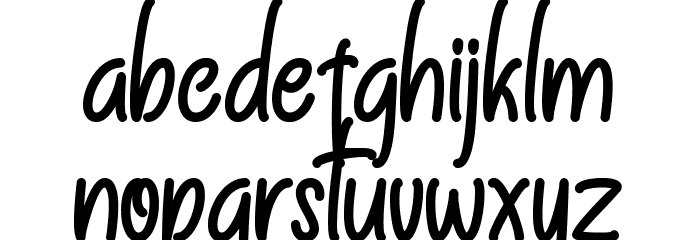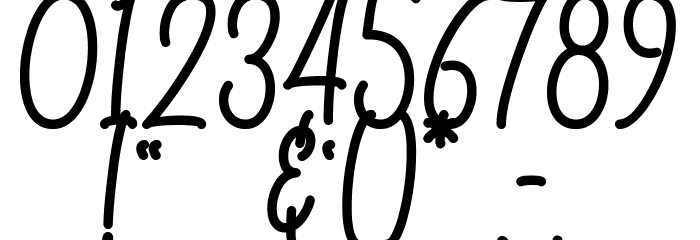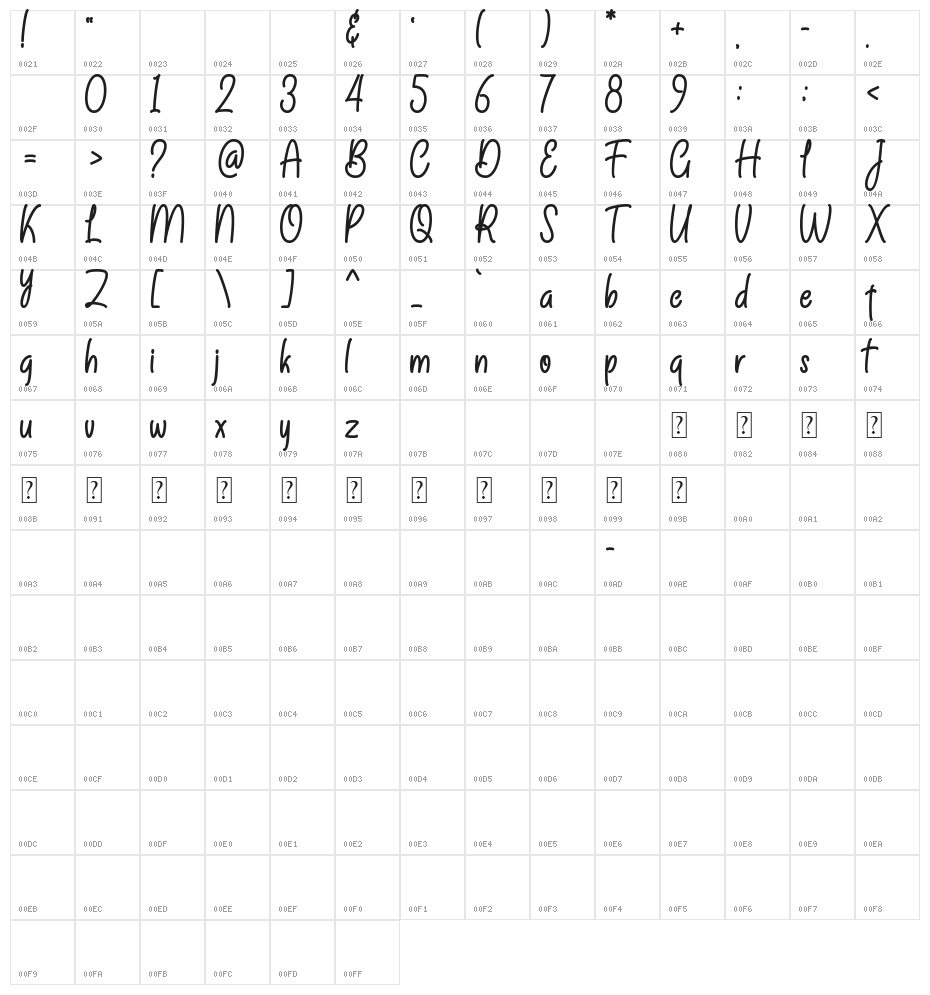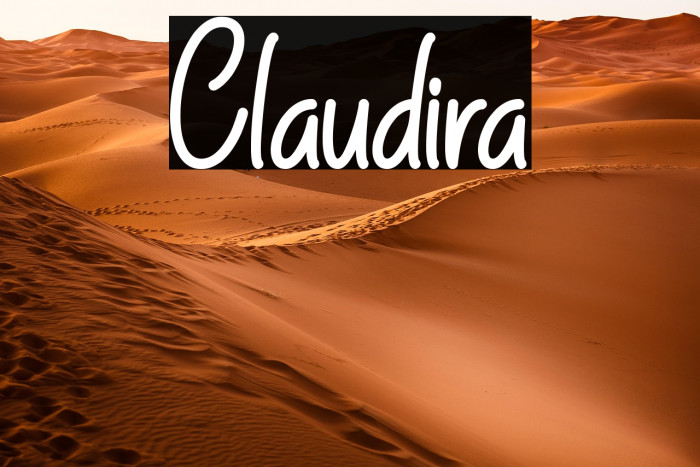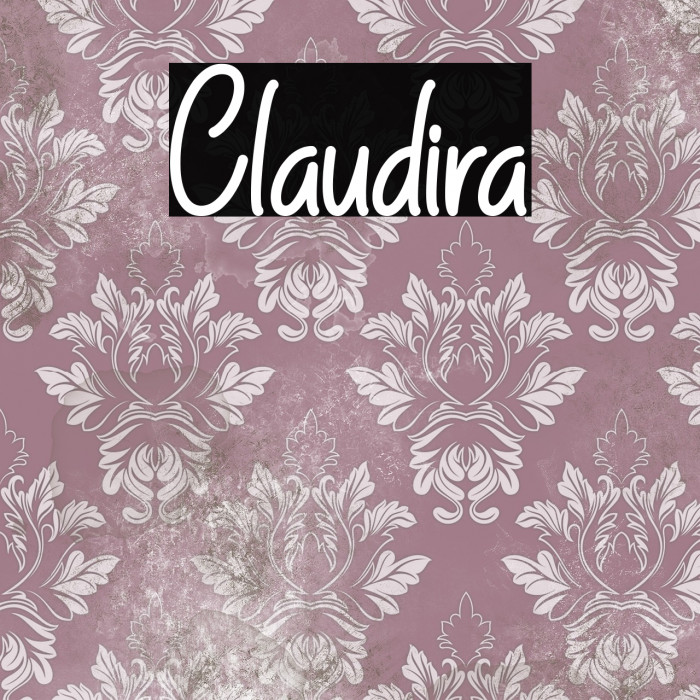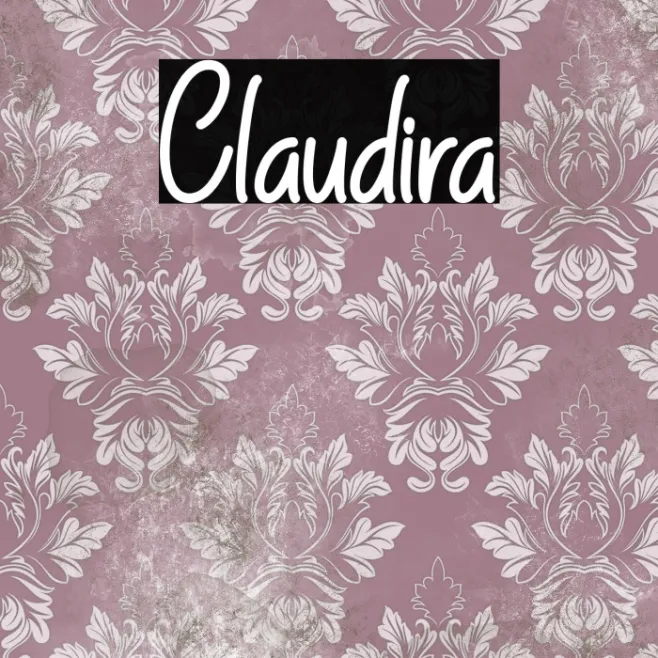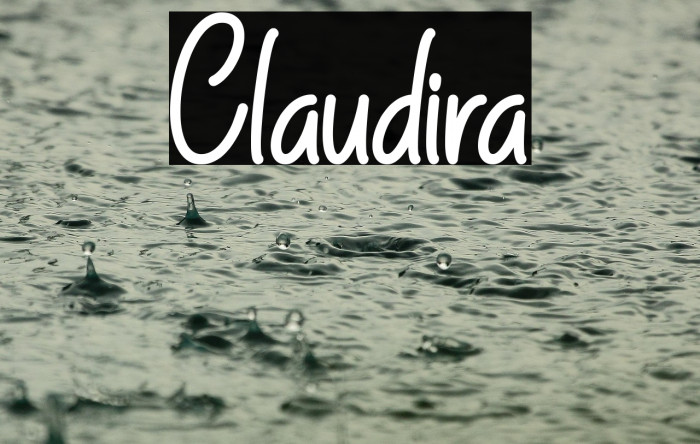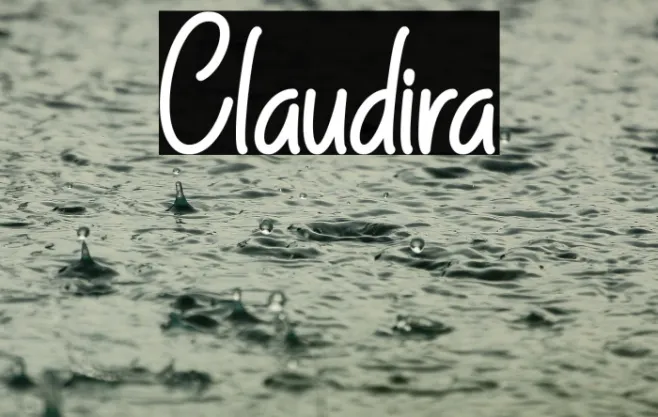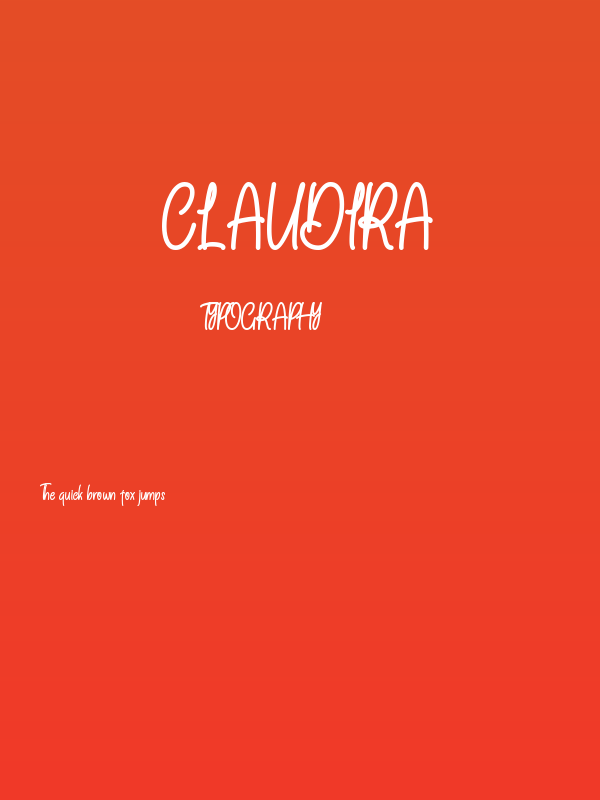
Claudira Font
This font features a playful and casual handwritten style, characterized by smooth, flowing curves and a slightly irregular baseline that adds a touch of whimsy. The uppercase letters are tall and narrow, with a consistent stroke width that gives them a clean and modern appearance. The lowercase letters maintain a similar style, with rounded edges and a friendly demeanor. The numerals are well-proportioned and align seamlessly with the overall aesthetic. Special characters are thoughtfully designed to match the font's playful nature, making it versatile for various creative projects.
A playful, casual handwritten font with smooth curves and a modern touch.
- Proposed Projects: Ideal for greeting cards, invitations, playful branding, and social media graphics.
- Overall Style: Casual
- Use Case: Logos, Headlines, Invitations